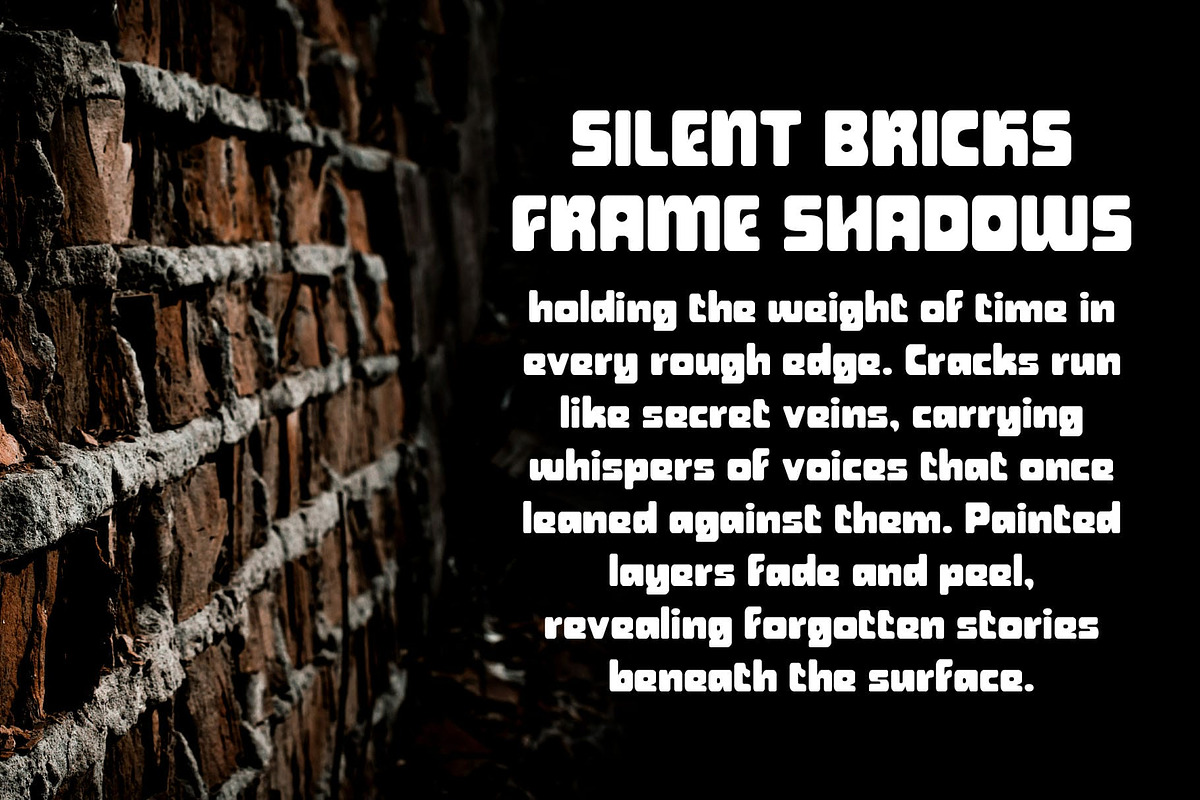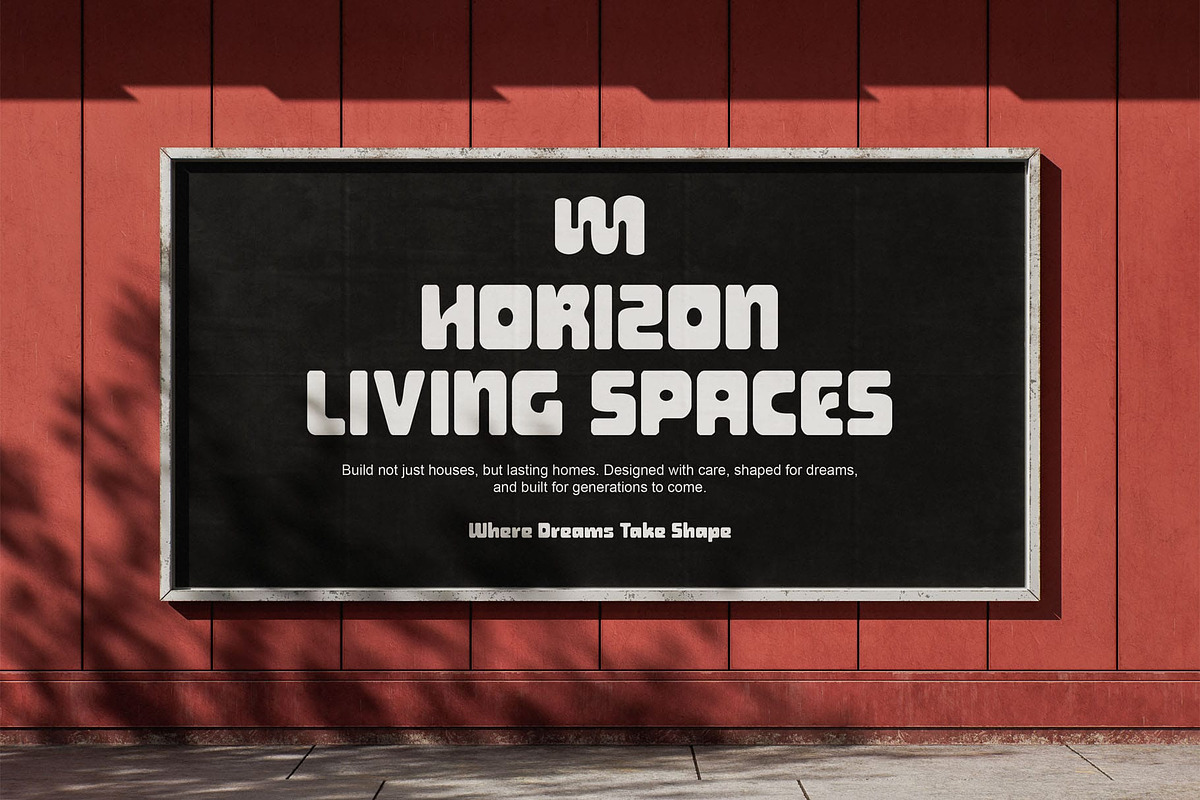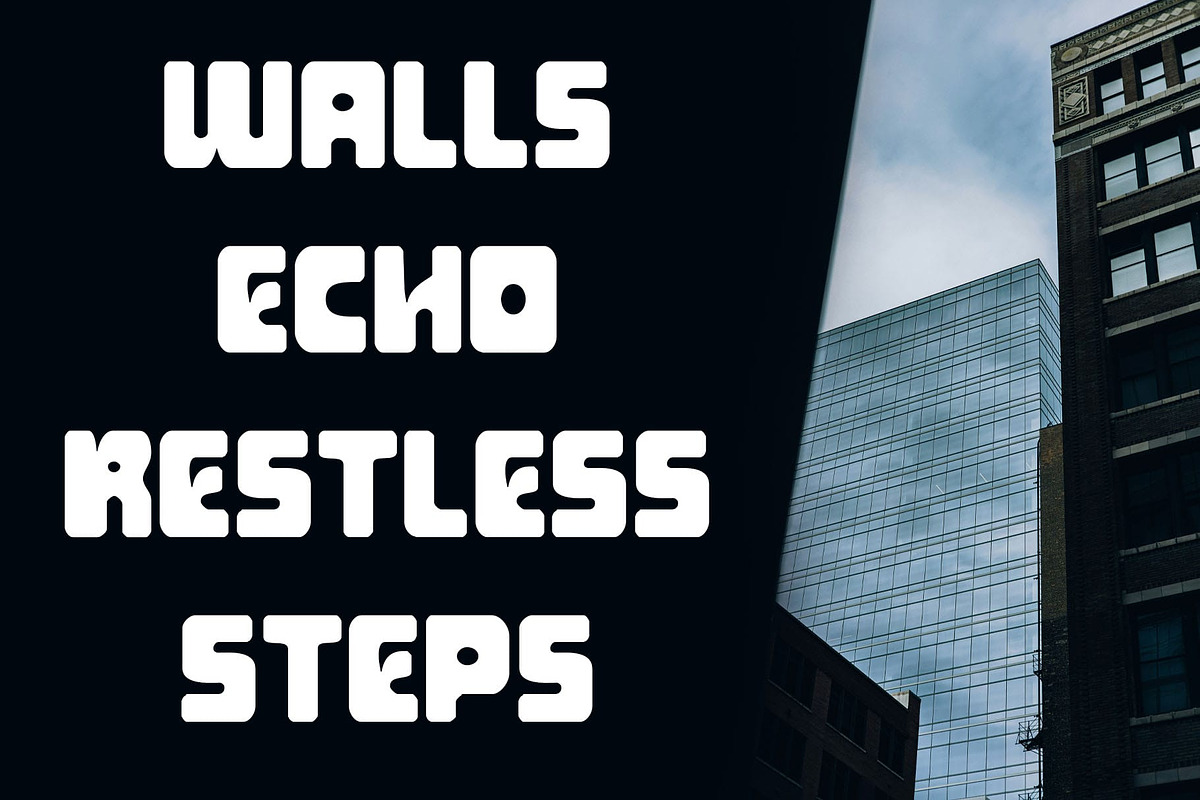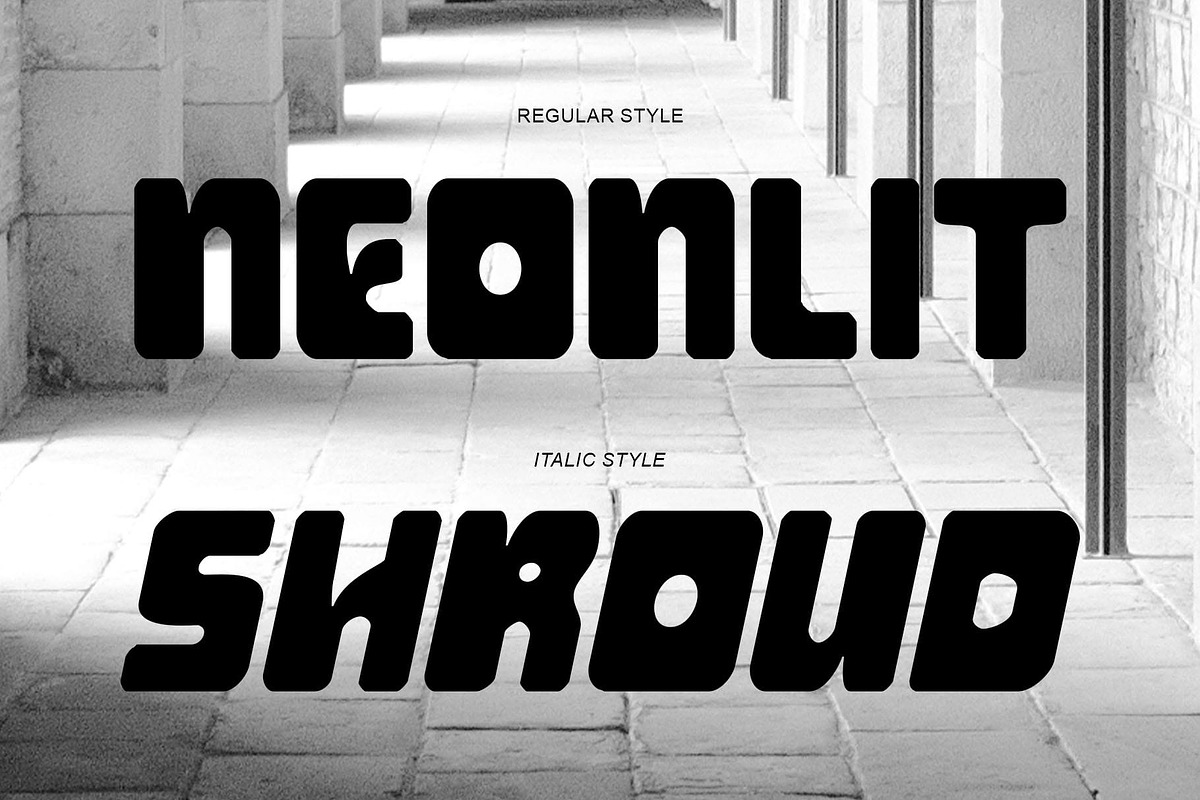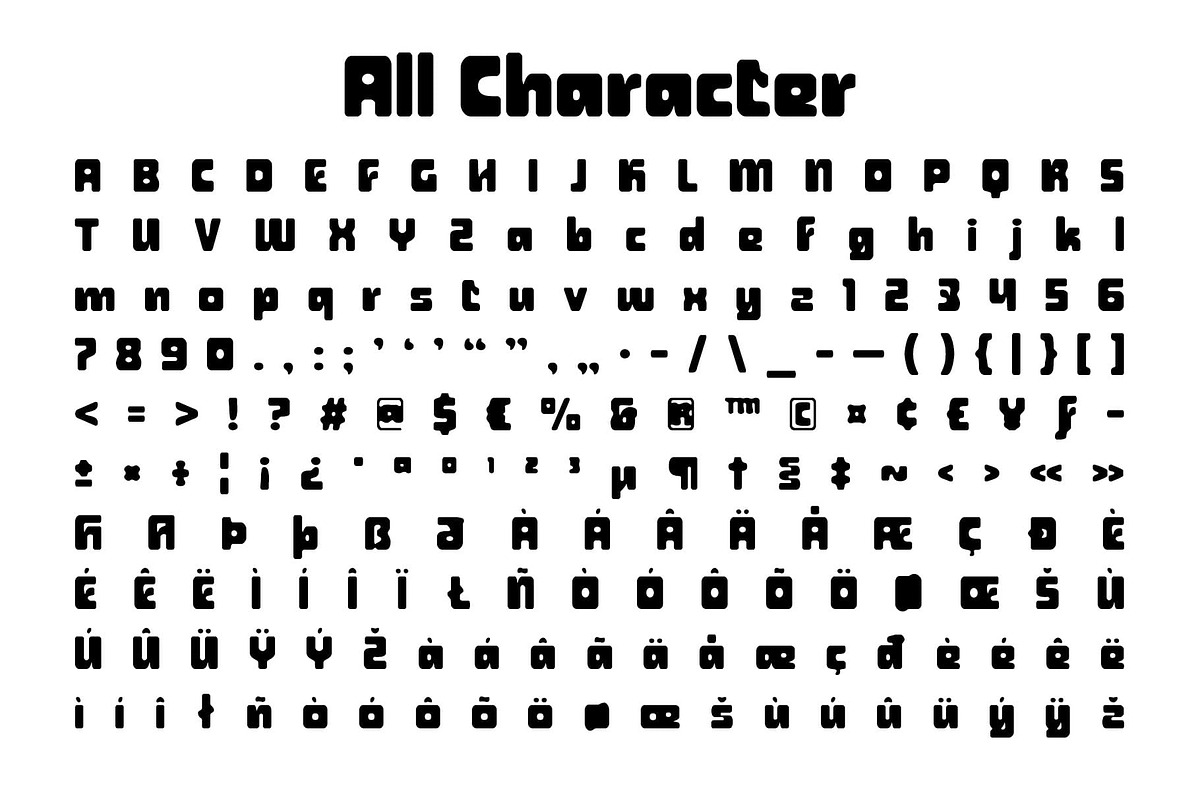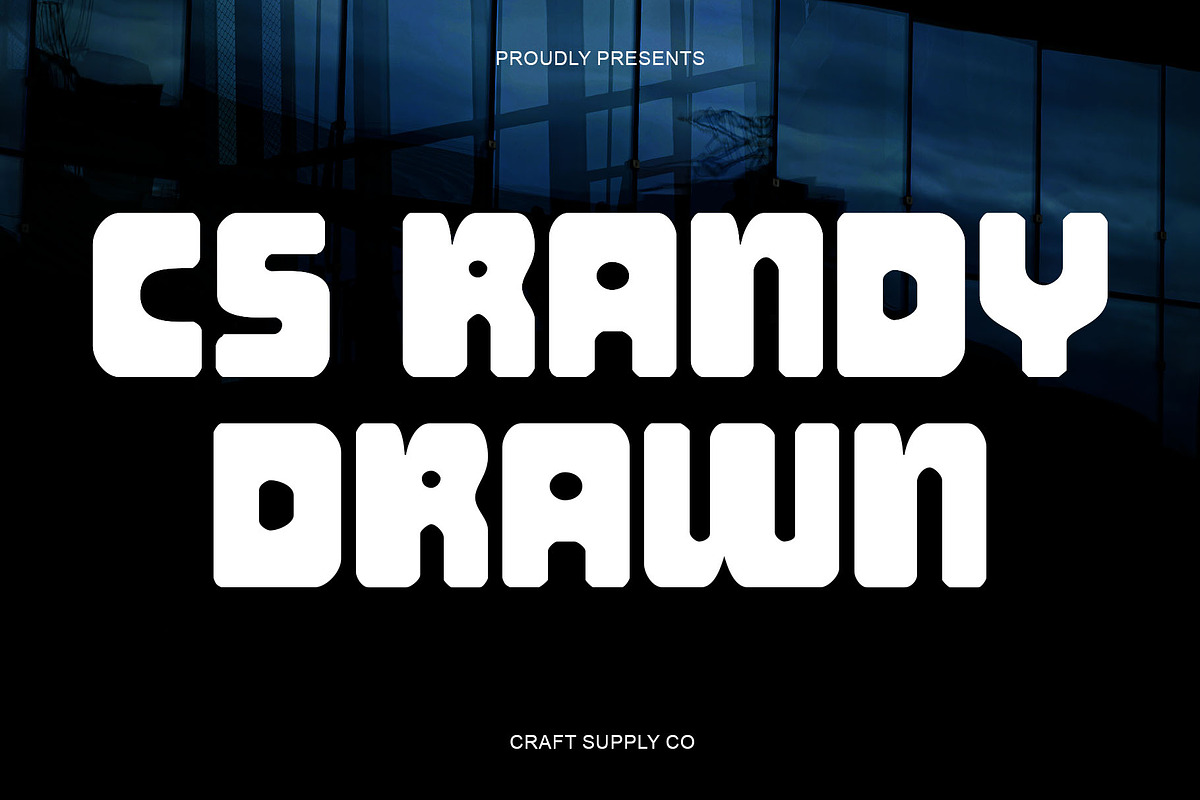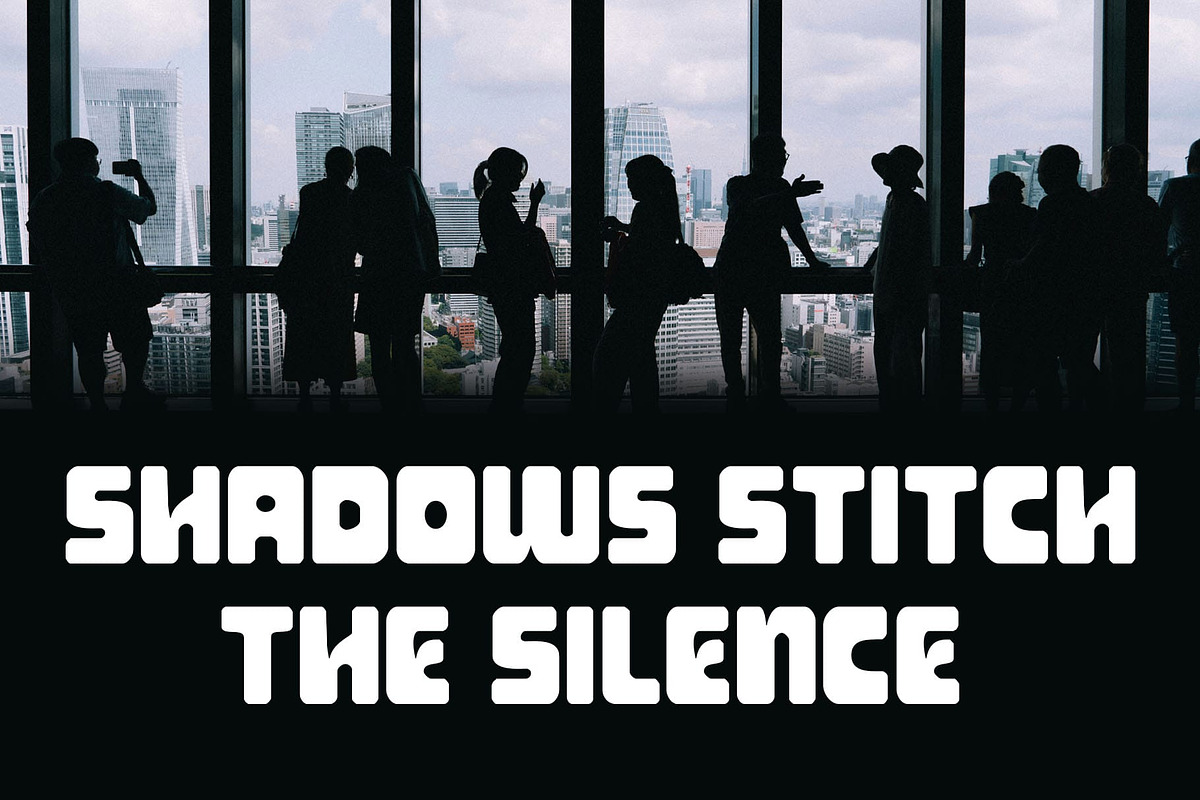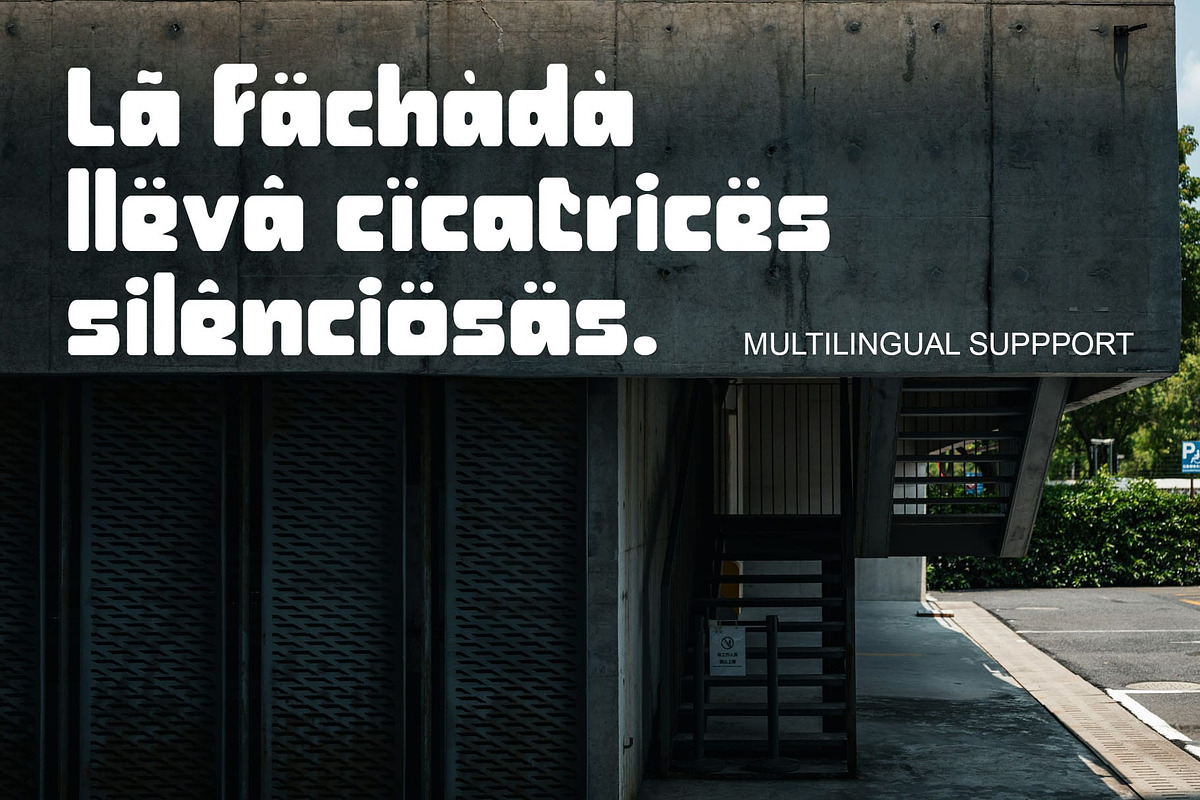
CS Randy Drawn
CS Randy Drawn – Bold Sans Serif with Handmade Futuristic Edge: Where Strength Meets Creative Expression
Bold Sans Serif Display Design This is a bold sans serif display font that thrives on strength and clarity. Its strong, clean shapes provide a commanding presence, ensuring that every word captures attention with confidence and impact.
Funky Edge with Drawn Texture What makes this font distinctive is its funky edge paired with a drawn texture. This handmade detail infuses the font with expressive character, softening its sharpness and adding a unique futuristic twist that feels both modern and artistic.
Perfect for Headlines and Branding From bold headlines and eye-catching posters to standout branding, this font adapts with ease. Its powerful form ensures readability while its textured personality elevates designs beyond the ordinary, making it suitable for creative campaigns and experimental visuals.
Lively and Unconventional Style This font is more than just a display font it’s an expressive tool that embraces unconventional style. It combines structural boldness with artistic flair, giving designers the flexibility to create works that feel energetic, vibrant, and distinctly original.